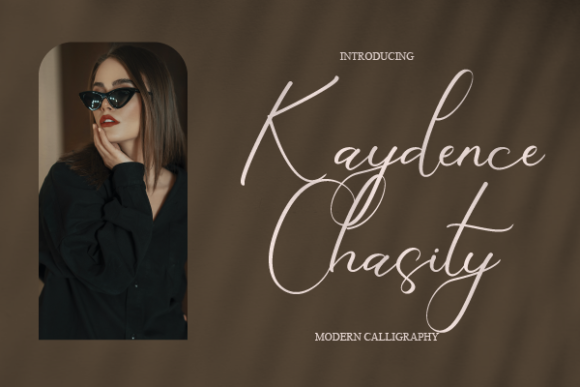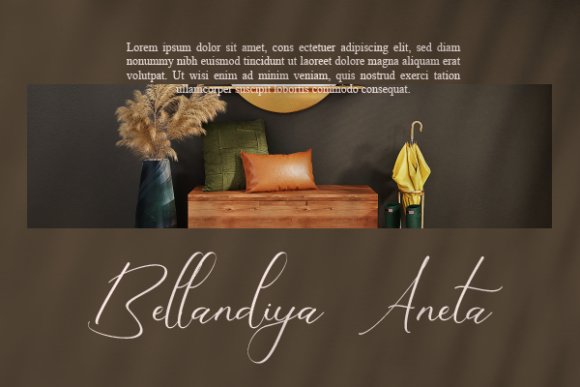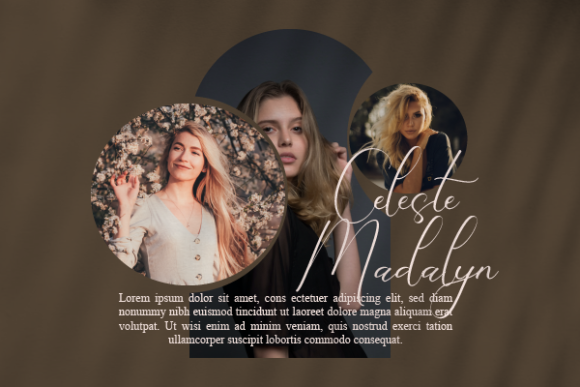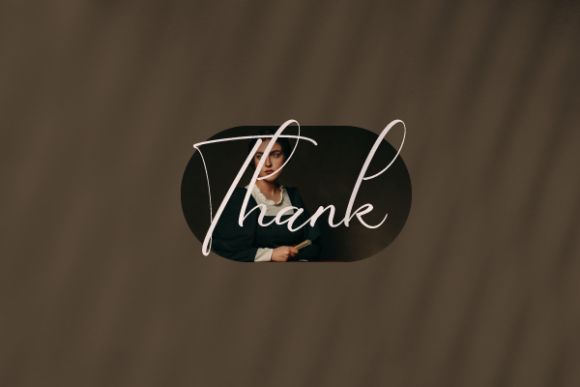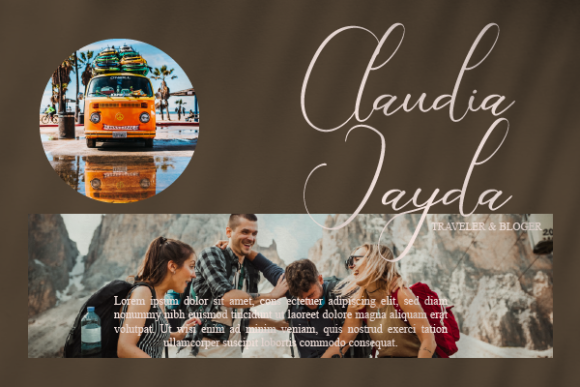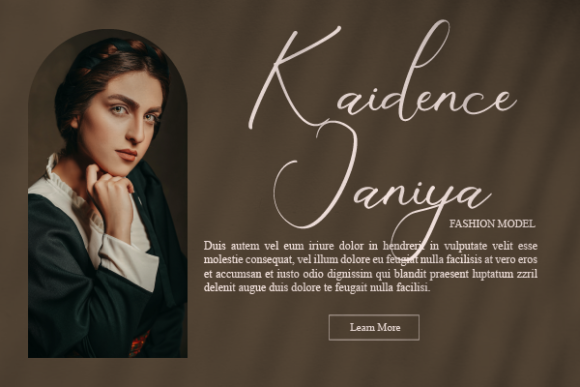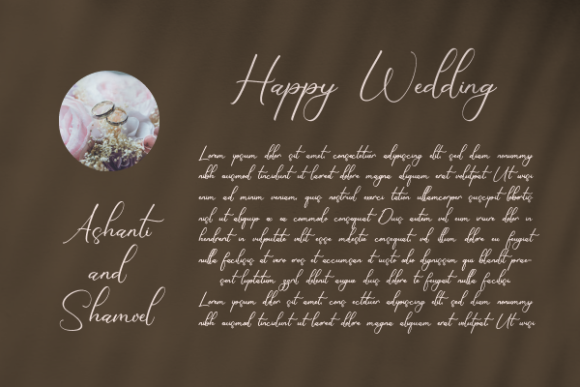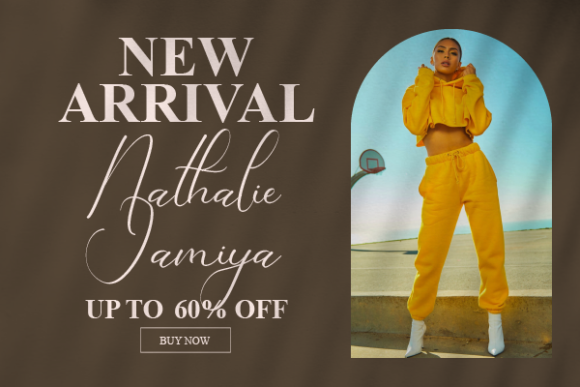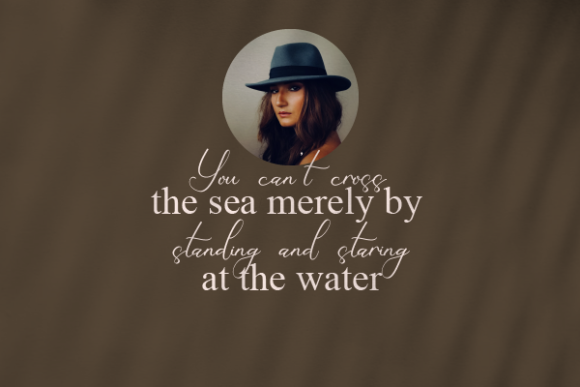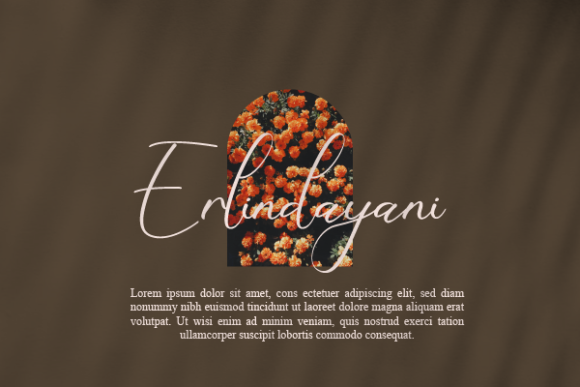
Kaydence Chasity Font
About Kaydence Chasity Font
Kaydence Chasity is a superb handwritten font that brings an elegant and curvy aesthetic to your design work. Its distinctive qualities make it an excellent choice for various applications, including product packaging, branding projects, magazine covers, social media graphics, wedding materials, and more. Whether you’re aiming for a sophisticated look or need a font to express words above a background, Kaydence Chasity is crafted to make your work stand out.
The elegant and curvy lines of the font contribute to its overall appeal, creating a sense of sophistication and style. This makes it particularly suitable for projects that require a touch of elegance and a visually pleasing design.
Whether applied to product packaging or social media visuals, Kaydence Chasity is designed to enhance the visual impact of your designs. Its versatility and unique characteristics make it a valuable asset for designers seeking a font that adds a distinctive flair to their creative projects.
In summary, Kaydence Chasity is more than just a font; it’s a superb handwritten design asset that brings elegance and style to a variety of applications. Its curvy lines and unique qualities set it apart, making it an excellent choice for making your work stand out in the realms of branding, packaging, and beyond.